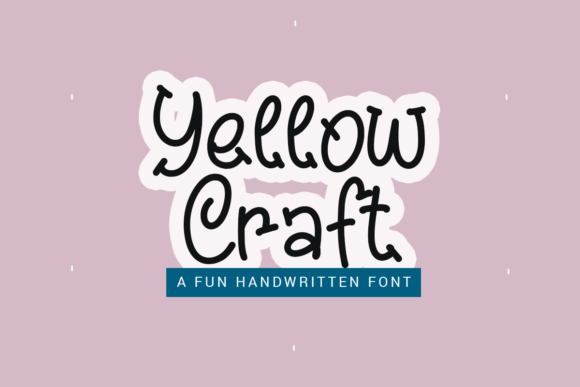
Unleash the vibrant charm of Yellow Craft Font, a captivating script font that exudes boundless energy. Immerse yourself in the world of visual storytelling with this extraordinary creation by fontkong. Yellow Craft Font is meticulously designed to ignite your imagination and bring your creative visions to life. Its enchanting style is perfect for fashionistas, lifestyle bloggers, and anyone seeking to elevate their digital presence.
With its innate versatility, Yellow Craft Font effortlessly adapts to a myriad of projects. Craft spellbinding winter designs that radiate warmth and joy. Whether you're creating social media graphics, website designs, or eye-catching posters, this font is your ultimate companion. Let your words dance across the screen with grace and elegance, leaving an unforgettable impression on your audience.
Yellow Craft Font's PUA encoding opens up a realm of possibilities, granting you effortless access to a treasure trove of glyphs and ligatures. Unleash your creativity and explore endless combinations to weave intricate designs that captivate and inspire. Transform your creative pursuits into masterpieces that resonate with your audience.
Embrace the magic of Yellow Craft Font and embark on a creative journey like never before. Let your imagination run wild as you craft enchanting stories through captivating typography. This font is not just a tool; it's an extension of your creative spirit, a gateway to a world where words come alive and visual masterpieces are born.